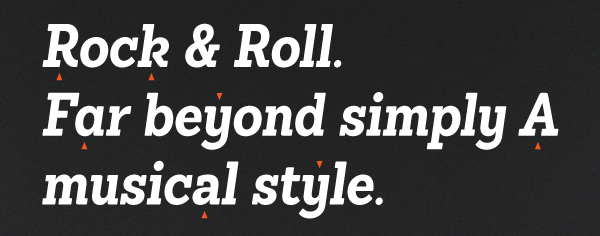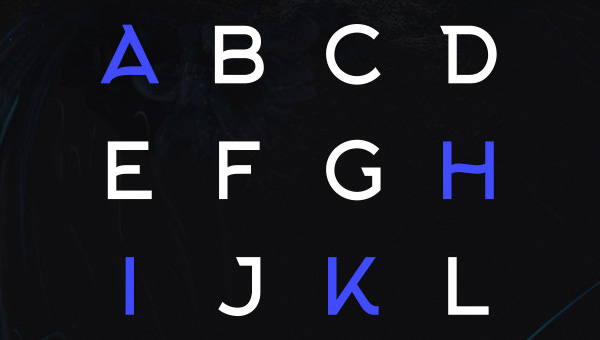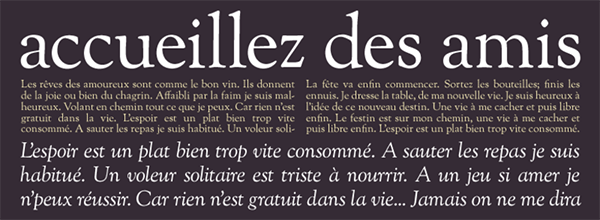
20 Great Free Fonts
Two words that bring creative pros rushing over with tongues wagging are “free” and “fonts.” And if they appear in a sentence as “free fonts,” then you’ve got yourself a dynamic duo to entice any designer. Well, assuming those fonts are of decent quality and from a reputable source. I’ve used my typographical prowess (read: “Ooooh…this one’s purdy!”) to ferret out a few gems to help you spice up your next project, all while keeping your budget under control.
Font Diner’s Featured Item is based on signage originally found on a department store marquee dating back to the 1940s. It has that clean art deco look, with a touch of modern poise, making it at home in a 50s-themed diner menu to high-tech headlines. Font Diner’s licensing is pretty strict and quite involved, so be sure to read their FAQs before using.
The Gothic styling of Adobe’s open source 12-font Source Sans Pro family was designed with user interfaces in mind. That being said, it’s a clean, sleek, highly-legible typeface that would be just as at home within an eBook as it would nestled inside a smartphone app. Desktop, eBook, PDF, app, and web
Part of Softmaker’s five-font Cambridge family, Cambridge Serial Regular is perfect for lending an old world feel to your layouts, especially when you get tired of Century Old Style. The other Cambridge Serial fonts are Light, Medium, Bold, and XBold, with the entire family going for only $15. Desktop and web
Steelfish from Typodermic is a 15-font family of condensed sans serif beauty, with seven of those fonts available for free. Typodermic explains that Steelfish was modeled after many different headline fonts, rather than one individual source. Definitely appeals to my love of mid-Century everything. Desktop
Space. The final frontier. C’mon, you were thinking that, too. While not exactly Classic Trek and not exactly Next Generation, Typodermic’s Ethnocentric boldly goes above and beyond to give your project a space-aged feel. Out of the 12 fonts in the family, the regular and italic fonts are free. Desktop
With 12 fonts in this family, Latinotype’s Sanchez Condensed provides a great alternative to Rockwell. I couldn’t put my finger on why I liked it slightly more than its more established relative, until I realized it was a bit more rounded (read: less stodgy). The regular and italic versions are available for free. Desktop and web
Insigne Design’s Le Havre Layers is a 21-font family with art deco design and accenting styles. Use the free Le Havre Layers Primary in combination with the other (purchased) fonts to create shadows, cross-hatching, wireframes, 3D shadows, and other dimensional effects. Desktop and web
CheapProFonts’ Scriptina Pro typeface is a modern script with an old-fashioned, hand-crafted look. Created as an upgrade to the original Scriptina, this version features an extended “non swoosh” collection of letterforms, though those swooshes are still available as OpenType extras. Scriptina Pro also features a multi-language character set and additional style sets. Desktop and web
If you grew up in the 1980s, even if you didn’t like heavy metal, you’ll instantly recognize Typodermic’s Metal Lord creation. Based loosely on Iron Maiden’s logo, this heavy metal font includes some stylistic alternates and uses the power of darkness, um, I mean OpenType, to join characters together and change forms when necessary. Desktop
Manic Depressive by SpideRaYsfoNtS features a hand-scratched look to create an edgy grunge typeface. Originally created as a fundraiser project for a bipolar disorder research group in the UK, it’s now available as a commercial font for most uses. The creator also provides a link to the foundation, so even users of the free license can donate to the cause. Desktop
I know it’s not even close to Christmas yet, but it’s never too early to start thinking about decorating. And Austie Bost’s Christmas Doodles font is fun way to decorate your creations with a little holiday spirit. This dingbat typeface contains roughly 90 (okay, exactly 90, I counted) characters. Desktop, web, ebook
Geometria from Brownfox is a 16-font family, with 8 weights, each with an italic version. I’m always on the lookout for clean sans serif fonts and Geometria really appeals to me. How could you not love that capital G? Geometria Light is available for free, which is my favorite (price, that is). Desktop and web
ChunkFive from the League of Moveable Type is a throwback to the chunky headlines of yesteryear and wanted posters of the Old West. But this ultra bold slab serif would look just as at home advertising this week’s grocery store specials or artisanal hand-made objet du jour. Desktop, eBook, PDF, app, and web
Check out this font, comrades! Arkhip from Fontfabric proclaims itself as a font with a Russian soul, made in the USSR. Whatever its history, I’m all for a font that is classically retro, yet somehow sleek and modern. The display font includes Cyrillic and small caps and comes in one flavor with limited special characters. Desktop, eBook, PDF, app, and web